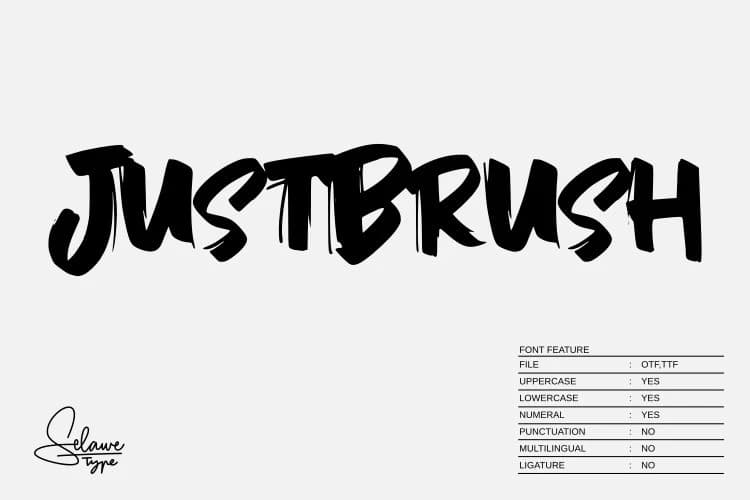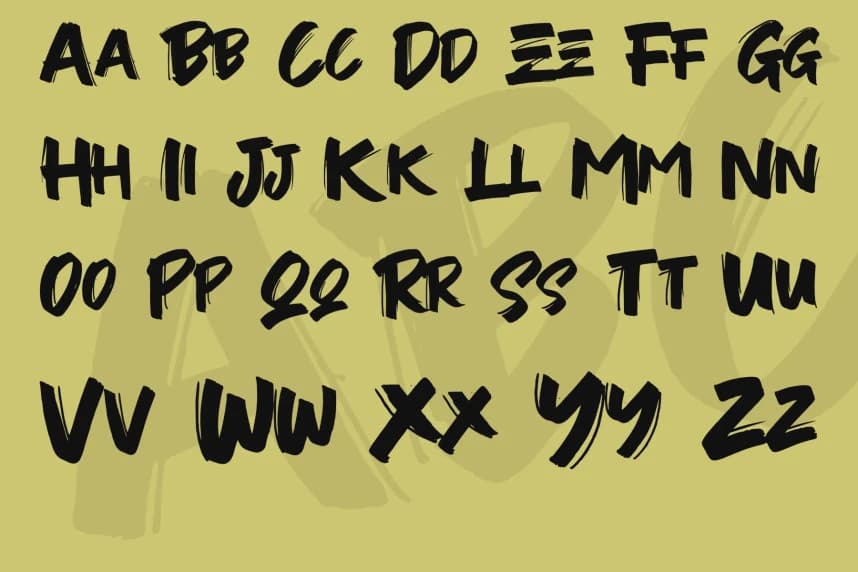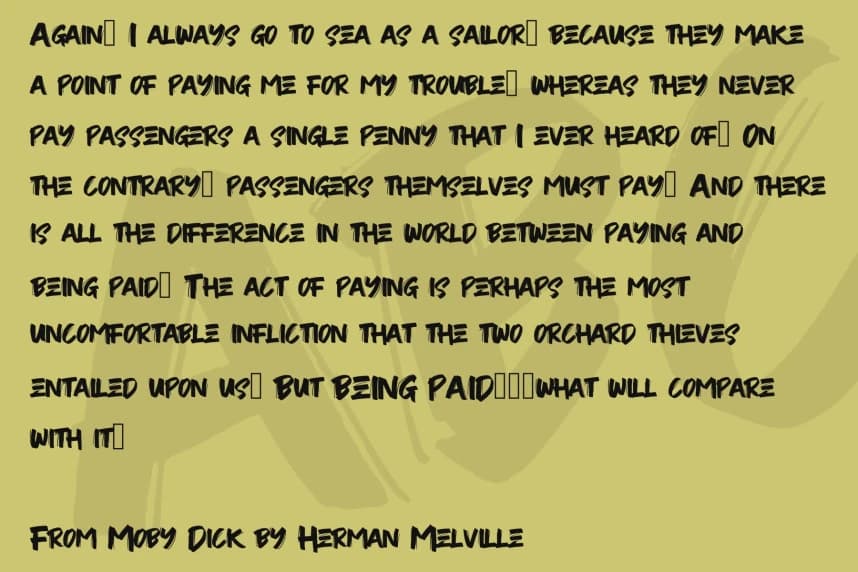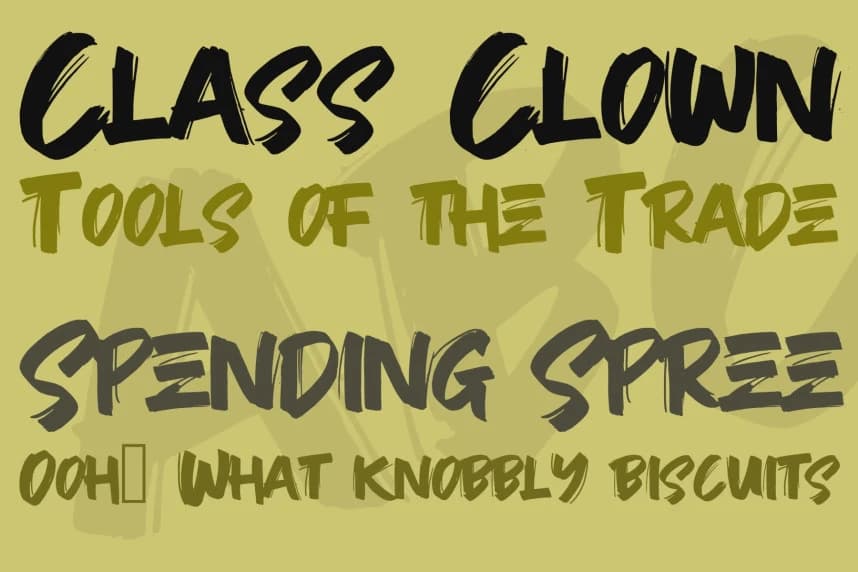
JustBrush Font
JustBrush Font is a bold and expressive brush-style typeface that captures the natural flow of handwritten strokes. Designed with a raw, authentic feel, each letter features slightly rough edges and dynamic movement, giving your text a lively and personal touch.